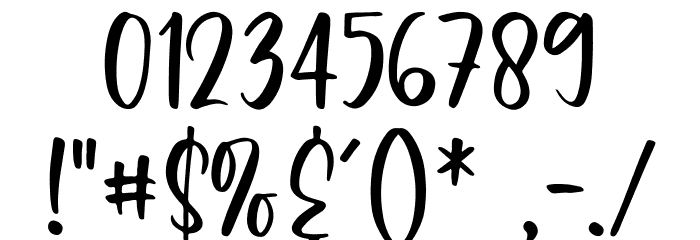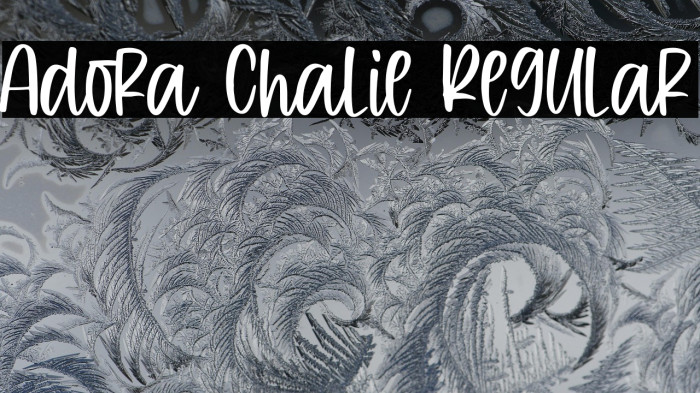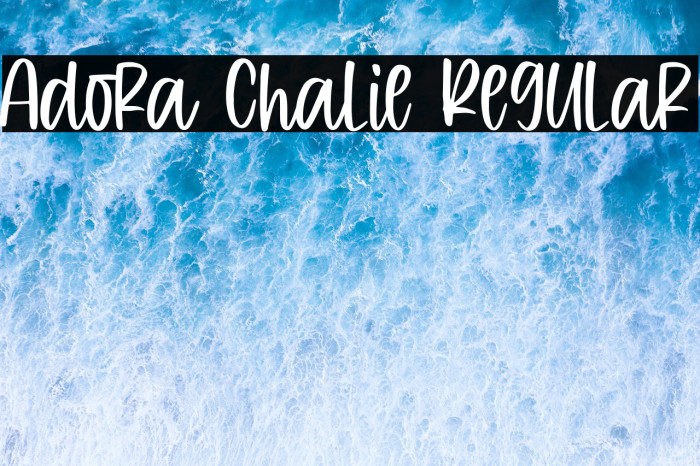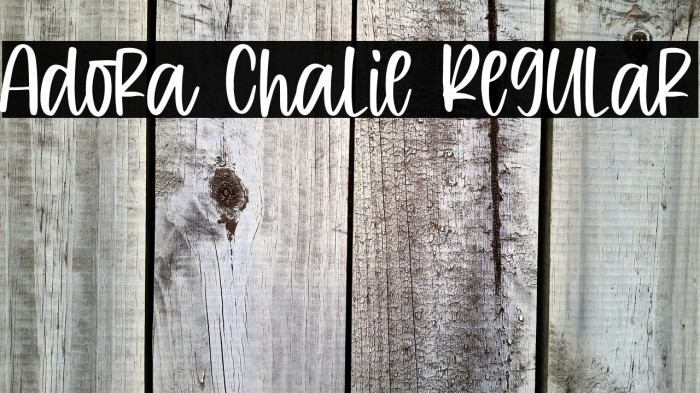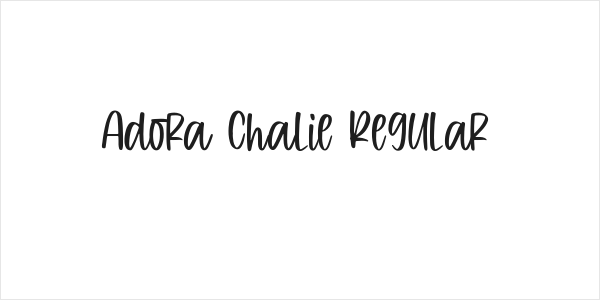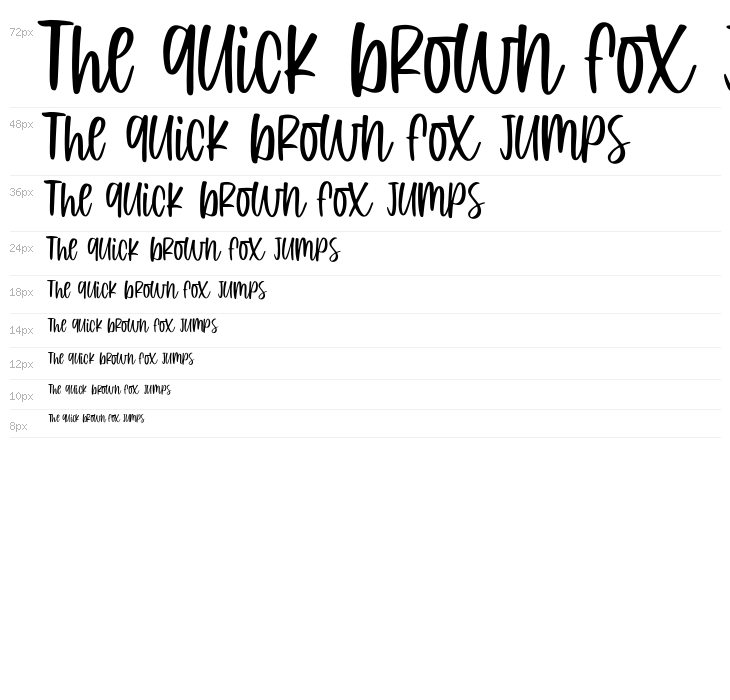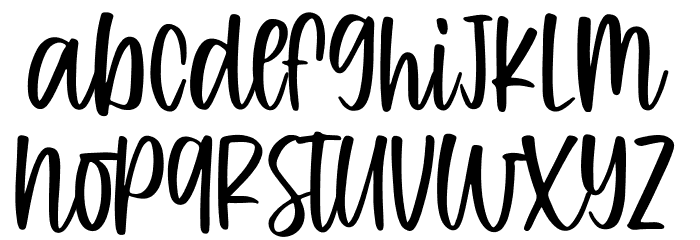
Adora Chalie Regular Font
Adora Chalie Regular Description
This font features a playful and energetic handwritten style, characterized by its bold and flowing letterforms. The uppercase and lowercase letters exhibit a consistent rhythm, with smooth curves and a slight slant that adds a dynamic feel. The numbers and special characters maintain the same lively aesthetic, making the font versatile for various uses. Its informal and friendly appearance makes it suitable for creative and casual projects. The strokes are relatively thick, providing good legibility while maintaining a whimsical charm.